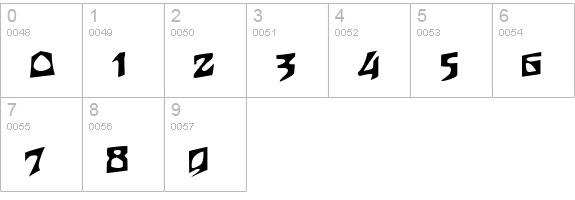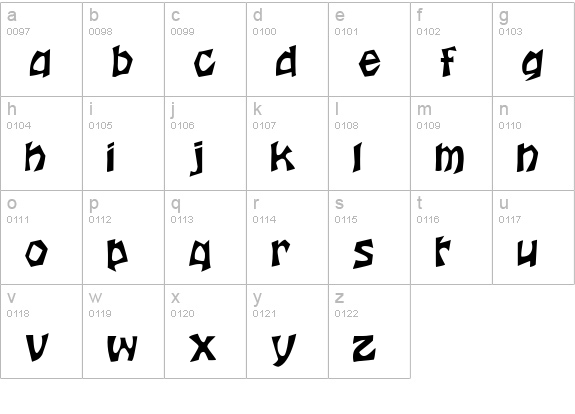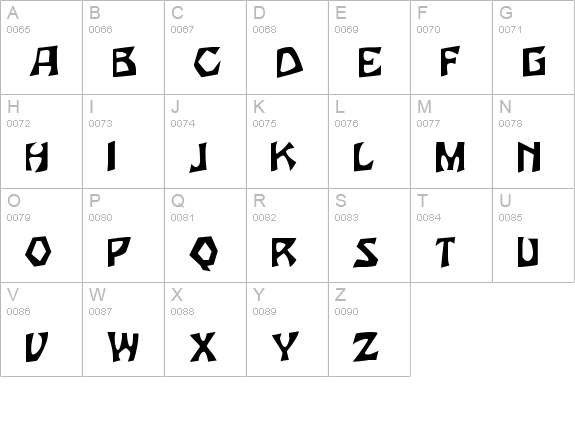
Stromboli Font Details
Stromboli font is a modern and stylish typeface that exudes elegance and sophistication. Its sleek lines and contemporary design make it perfect for a wide range of creative projects, from branding to editorial design. The clean and legible letterforms of Stromboli font ensure readability across various platforms and applications. What sets Stromboli font apart is that it is available for free download at FontsMarket.com. This means that you can easily access this high-quality font and incorporate it into your designs without any cost. Whether you are working on a personal project or a commercial venture, Stromboli font offers versatility and versatility. With its timeless appeal and professional aesthetics, Stromboli font is a must-have in every designer's toolkit. Download it today for free at FontsMarket.com and elevate your designs to the next level.